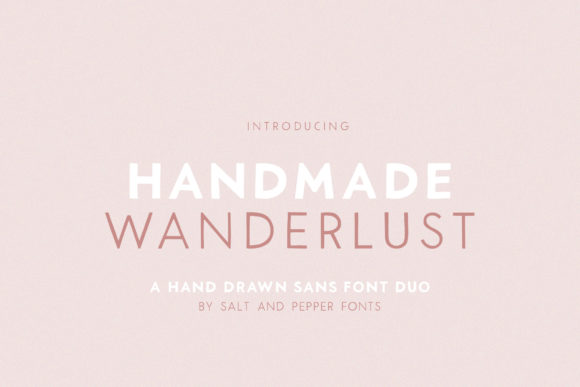
Welcome to Handmade Wanderlust Duo, the perfect sans serif font for all your creative needs! Created by the talented team at Salt and Pepper Fonts, this font is the epitome of elegance and versatility.
With its thick and thin lines, Handmade Wanderlust Duo adds a lovely touch to any design. Whether you're working on a cartoon project, a children's game, or any other creative endeavor, this font will elevate your work to the next level.
But Handmade Wanderlust Duo is more than just a beautiful font. It's also incredibly functional, with a wide range of possible applications. Use it for headlines, titles, body text, or anything else you can imagine. The possibilities are endless!
And if you're looking for a font that will capture your audience's attention, Handmade Wanderlust Duo is the perfect choice. Its unique style and eye-catching design are sure to make your project stand out from the crowd.